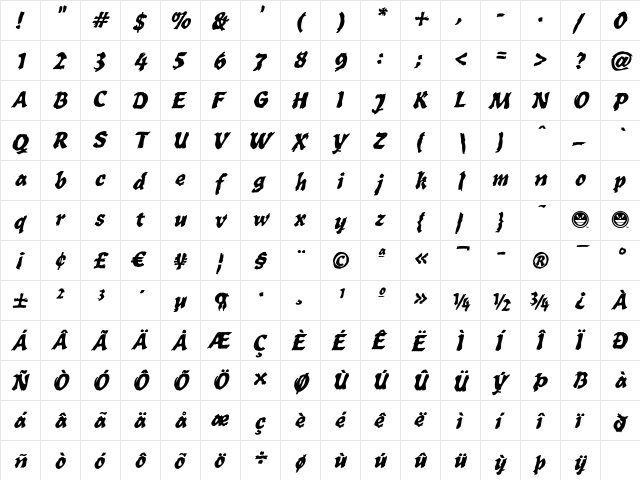
WILD1 Toxia Bold Italic Font Preview
WILD1 Toxia Bold Italic
WILD1 Toxia Bold Italic Font Details
Design Context for WILD1 Toxia Typeface
WILD1 Toxia is a composed and adaptable typeface that performs quietly and consistently across a wide range of design contexts. The dynamic lean of this cut emphasises speed and emphasis in any layout. The heavy weight commands attention and anchors typographic hierarchies.
Pro Tip: Try WILD1 Toxia for annotation and caption copy alongside an upright companion — the contrast in angle creates a dynamic but ordered typographic system.